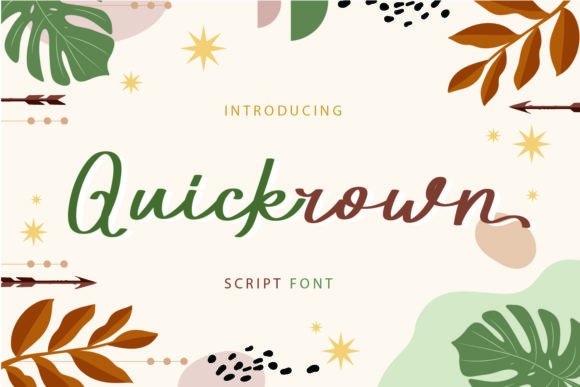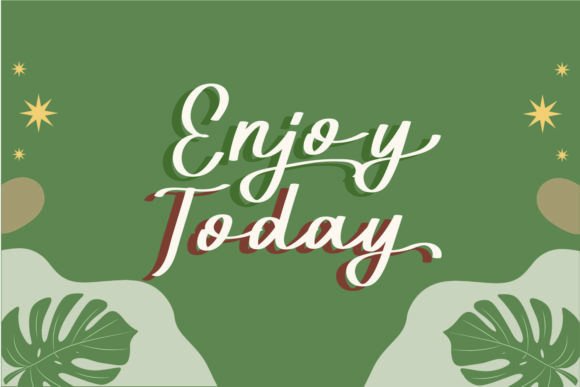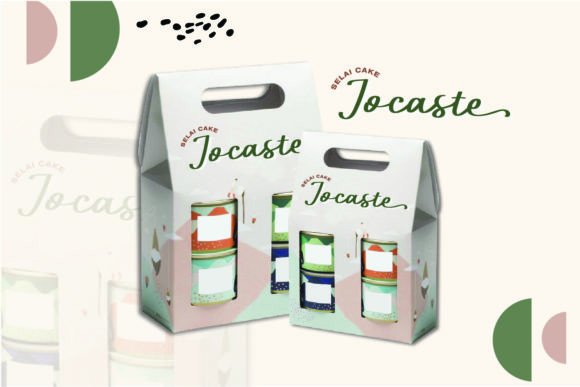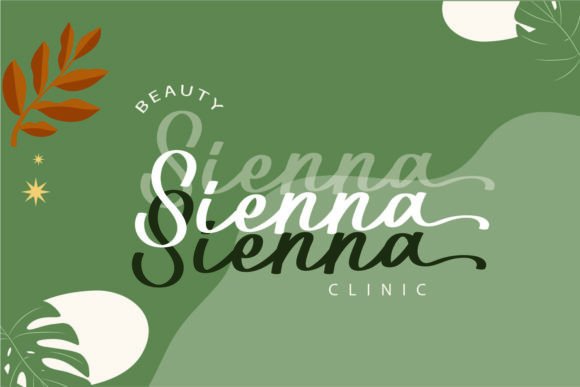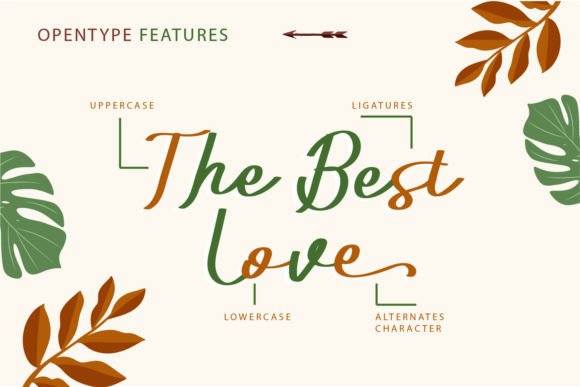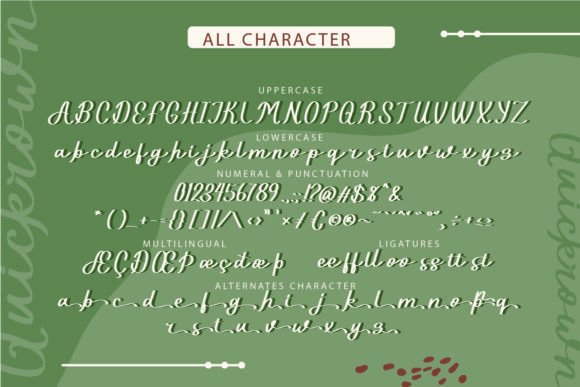
Quickrown Font
A Modern and Cool Handwritten Script
Quickrown is a sleek and stylish handwritten font, designed to add a modern flair to any design. Featuring smooth strokes and clean lines, this font combines timeless elegance with a contemporary edge. Its unique character makes it a perfect choice for designers seeking a handwritten style that’s both fresh and sophisticated.
Whether you’re creating a logo, an invitation, or a social media graphic, Quickrown adds personality and class to your designs.
Quickrown is a versatile font that works well across a wide range of creative projects. It’s ideal for logos, branding, and business cards. The font’s modern, cool vibe gives your brand a memorable look that is both professional and inviting.
This font is also great for event invitations, greeting cards, and promotional materials. Its timeless yet trendy style ensures that your designs stand out and capture attention.
Quickrown shines in social media graphics, website headers, and product packaging. Its sleek and stylish script brings sophistication to any content, making it perfect for high-impact visuals.
Since Quickrown is PUA encoded, you can easily access all the special glyphs, swashes, and ligatures. This feature gives you full creative flexibility and allows you to experiment with different design elements.
Despite its modern, handwritten style, Quickrown remains clear and legible at any size. The spacing between the letters ensures that your text stays neat and readable, whether you’re using it for large headlines or smaller captions.
Pair Quickrown with a clean sans-serif font for contrast. Use Quickrown for titles and the sans-serif for body text. This combination helps create visual balance while maintaining readability.
To showcase Quickrown’s stylish nature, use clean backgrounds and bold color palettes. Shades like deep blue, charcoal, and warm neutrals let the font’s smooth strokes stand out without distraction.
For wedding materials or branding projects, consider adding subtle textures or minimalist illustrations to complement the font’s modern style. For social media and promotional content, keep your layouts simple and let the font take the spotlight.
Think about the mood you want to create. Quickrown is perfect for designs that should feel modern, bold, and professional, while still maintaining a personal touch.
Quickrown is more than just a cool handwritten font—it’s a versatile tool that transforms any design with its sleek and modern style. Its smooth, flowing strokes bring elegance and personality to your work.
Adding Quickrown to your font library means you’ll always have a stylish and reliable option for creative projects. Whether you’re designing logos, social media graphics, or promotional materials, this font adapts easily to your ideas.